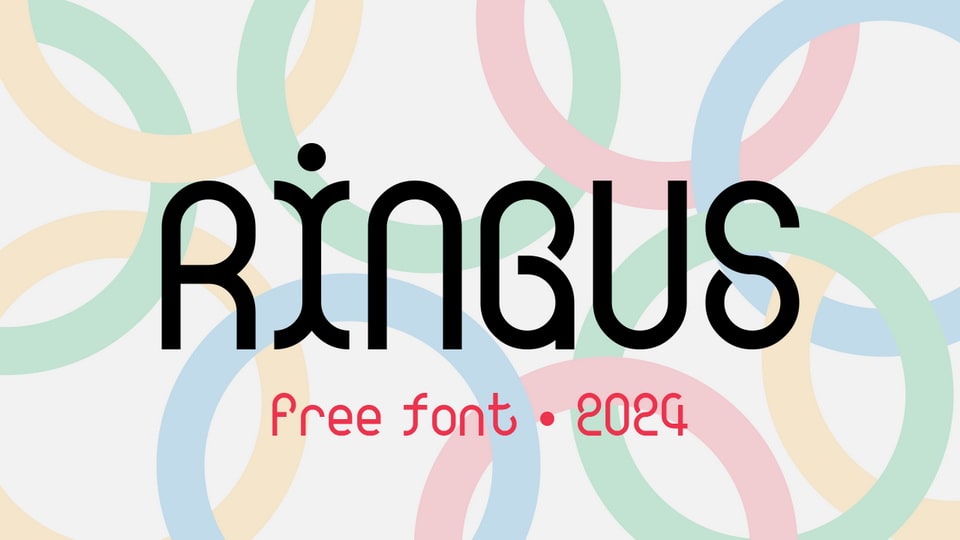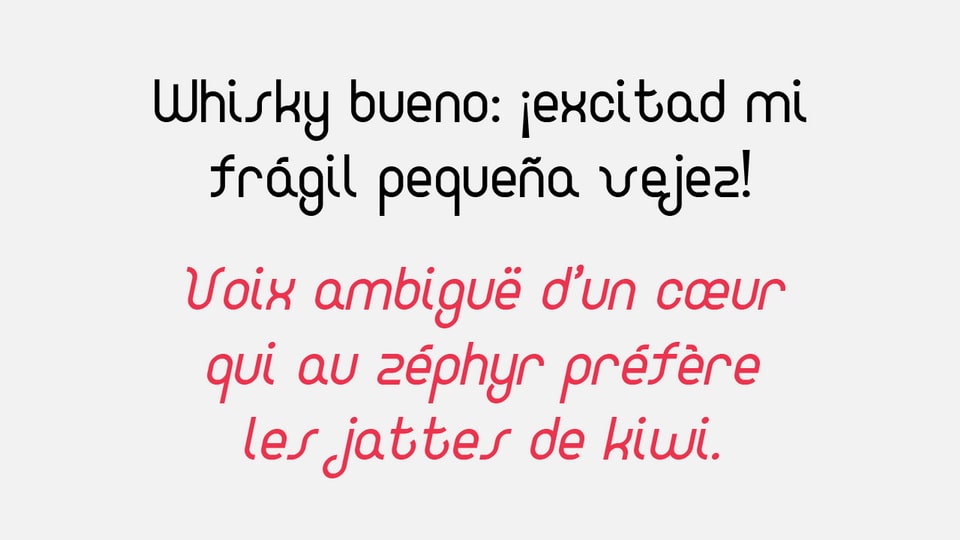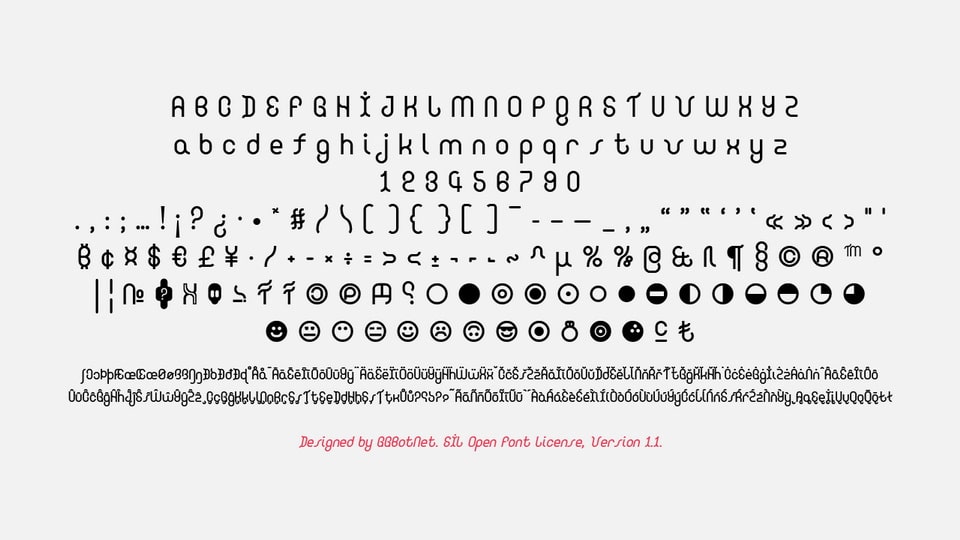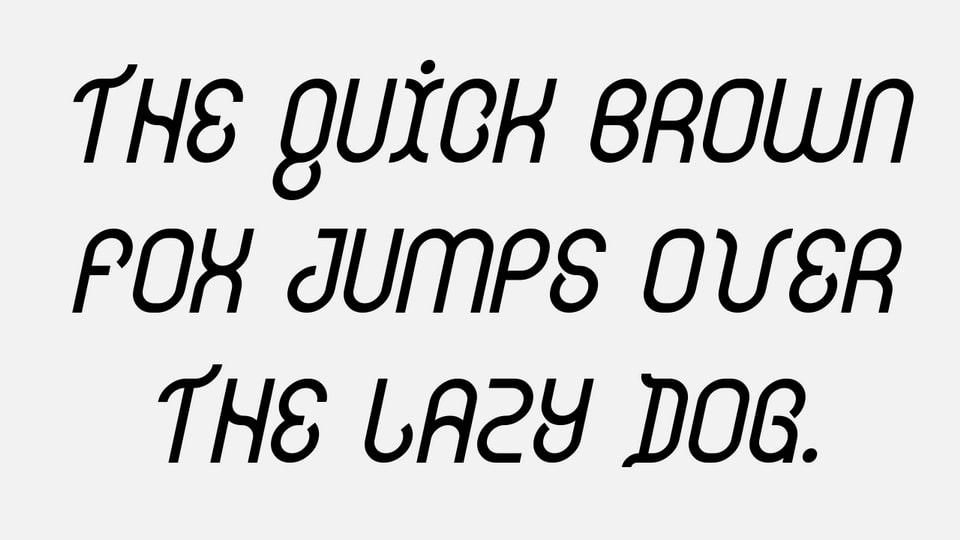
Ringus is a rounded sans serif with a playful geometric structure and decorative character details. Its letterforms use smooth monoline strokes, open counters, and tall proportions, giving the alphabet a light, modern rhythm. Several shapes include distinctive cut-ins and joined curves, while the dotted accent above the lowercase-style forms adds a casual tone. The design remains readable at display sizes, though its stylized construction is better suited to short text than long paragraphs. It fits headings, logos, labels, posters, children’s graphics, event titles, friendly digital layouts, and soft branding systems.